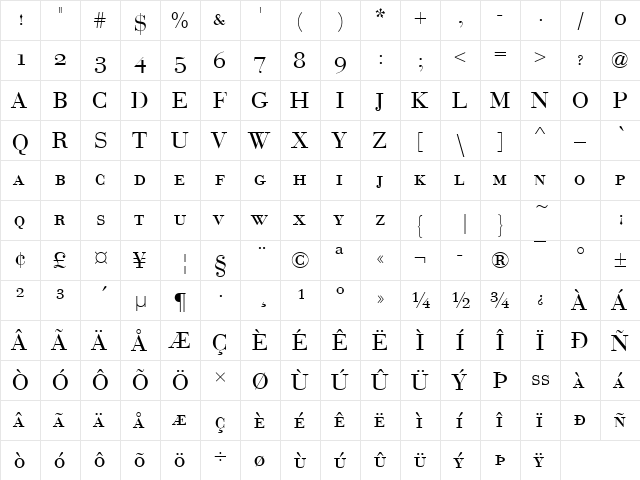
BodoniNo1URWSCDReg Regular Font Preview
BodoniNo1URWSCDReg Regular
Design Context for BodoniNo1URWSCDReg Typeface
BodoniNo1URWSCDReg is a composed and adaptable typeface that performs quietly and consistently across a wide range of design contexts.